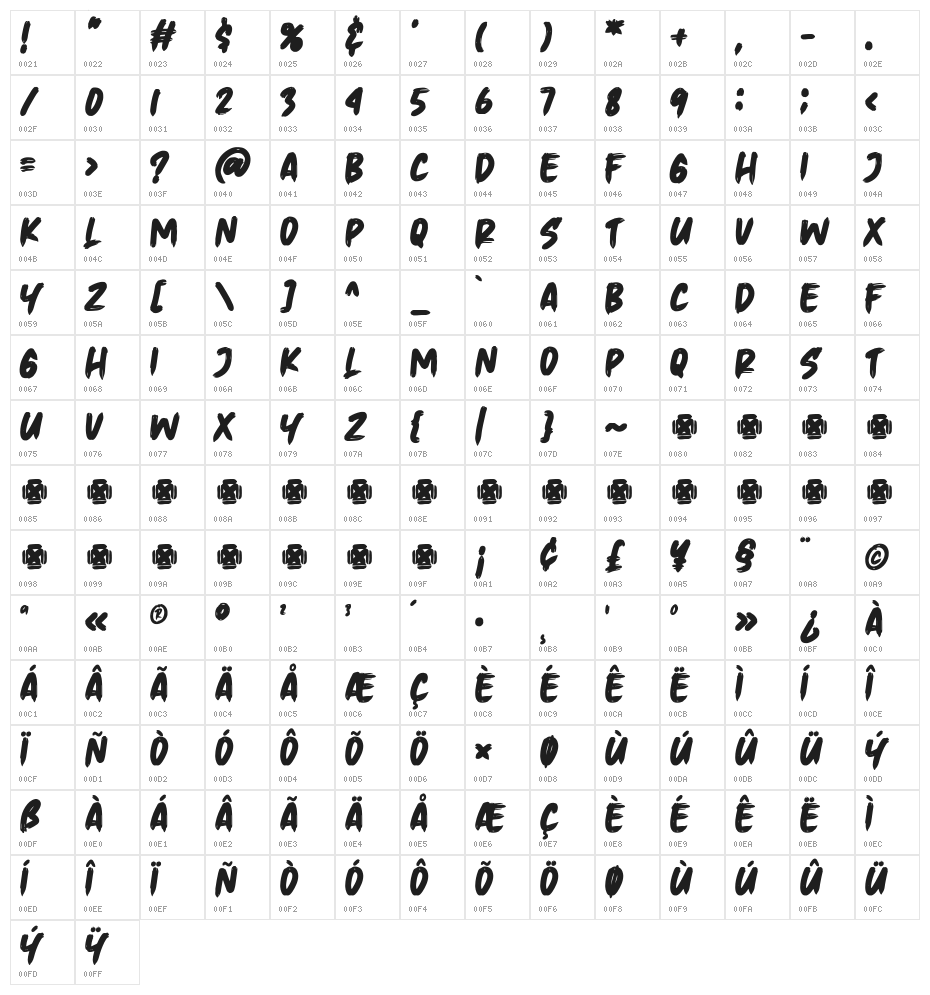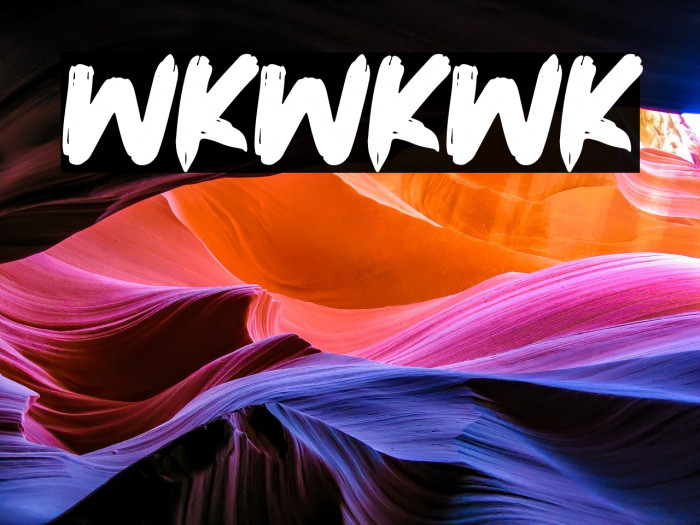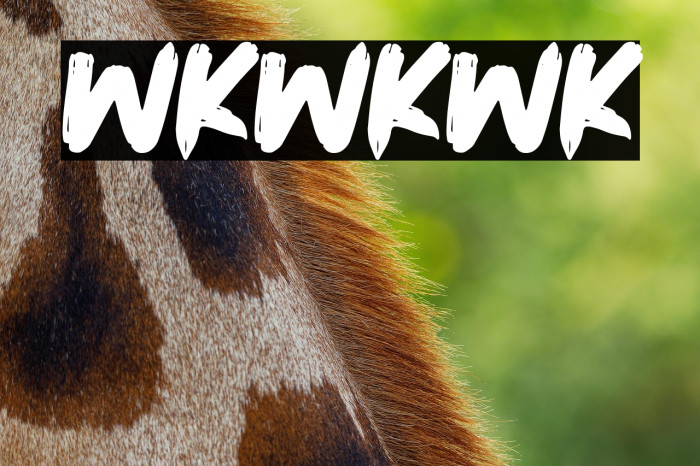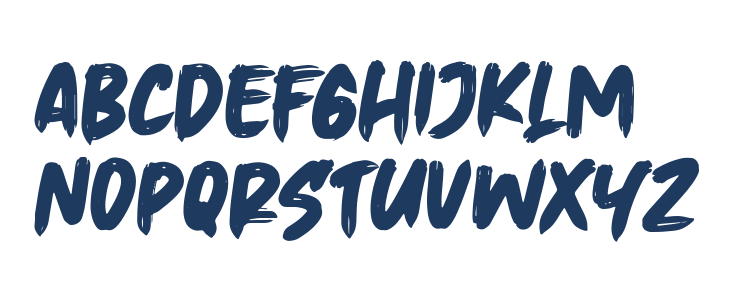
Wkwkwk Font
Wkwkwk Description
This font exudes a bold and energetic style, characterized by its brush-like strokes that give it a hand-painted appearance. The letters are thick and dynamic, with an irregular, organic flow that adds a sense of movement and vitality. The uppercase and lowercase letters maintain a consistent style, with the uppercase being slightly more pronounced. Numbers and special characters follow the same aesthetic, ensuring a cohesive look across all text elements. The font's rough edges and varying stroke widths contribute to its expressive and artistic feel, making it ideal for projects that require a strong visual impact.
| Proposed Projects | Ideal for posters, branding, album covers, and any creative project needing a bold, artistic touch. |